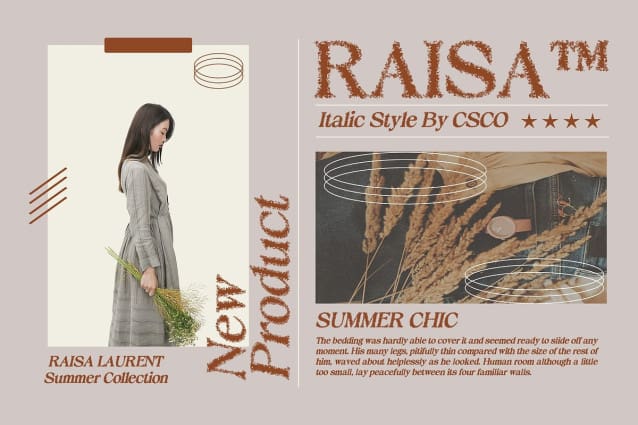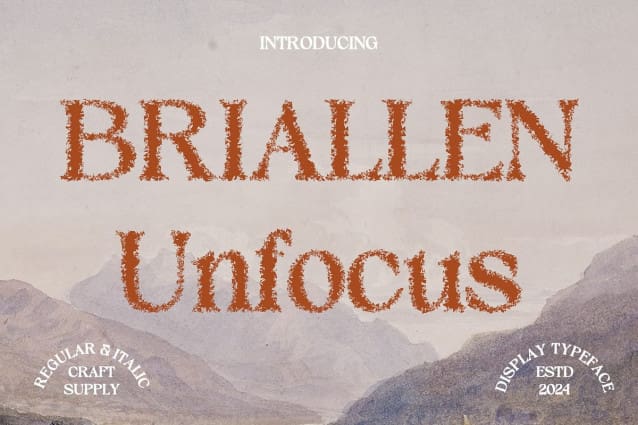
Briallen Unfocus Font
Briallen Unfocus Font: Redefining Display Typography. Blurry Elegance Briallen Unfocus presents a unique take on display typography with its high-contrast serif design and unfocused effect. Each character appears slightly blurred, adding an intriguing touch to contemporary or experimental displays.
Dynamic Serif High Contrast Characterized by its dynamic serif style and high contrast, This font commands attention with its bold yet blurred appearance. The sharp contrast between thick and thin strokes creates visual interest, while the unfocused effect adds an element of mystery.
Perfect for Contemporary Displays Tailored for contemporary display needs, This font is ideal for projects that demand a bold and unconventional aesthetic. Whether it’s digital artwork, experimental posters, or avant-garde branding, this font adds a distinctive flair to any design.
Experimentation Encouraged Embrace experimentation with This font as your creative companion. Its blurred shapes encourage innovative design approaches, allowing you to push the boundaries of conventional display typography and explore new artistic possibilities.
Bold Blur This font challenges the norms of display typography with its bold serif design and intriguing unfocused effect. Suitable for contemporary and experimental projects, this font invites designers to explore the blurred lines between clarity and creativity. Venture into the realm of This font and unleash your design’s avant-garde potential.